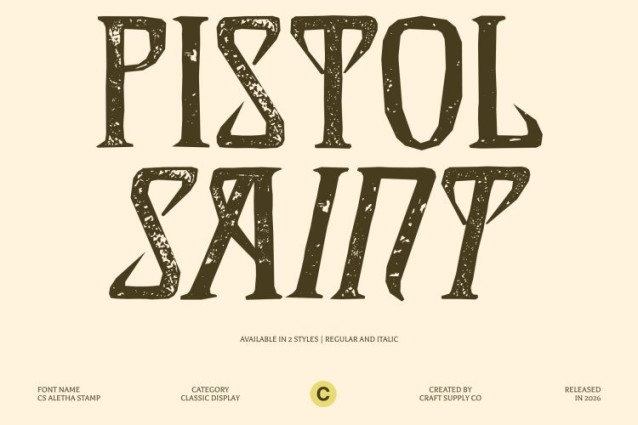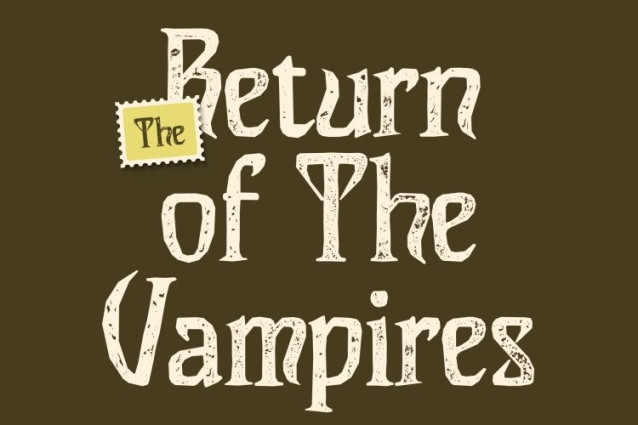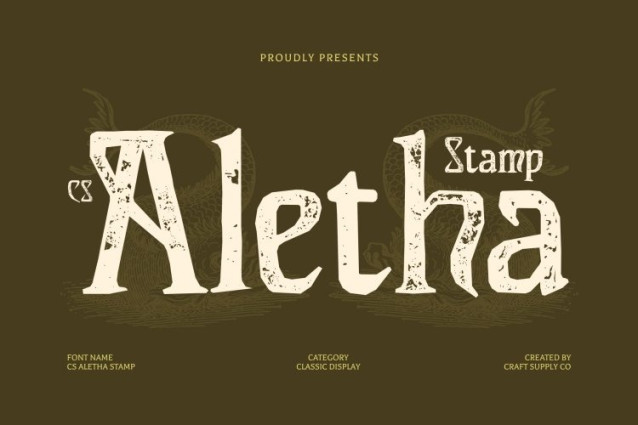
CS Aletha Stamp Font
CS Aletha Stamp Font This is a modern display serif font distinguished by its unique L and T characters, featuring inwardly curved, pointed terminals. These refined details give the font a sharp yet graceful personality, blending contemporary precision with classic serif elegance. Enhanced with a stamp effect, the letterforms gain subtle texture and an organic, slightly aged finish that adds character and visual depth.
Sophisticated Design with Artistic Character
The combination of sharp serifs and stamped texture creates a refined yet expressive aesthetic. While the structure remains clean and elegant, the textured surface introduces warmth and authenticity, making the font feel handcrafted rather than purely digital. This balance results in a timeless design that feels both polished and full of personality.
Timeless Quality with a Modern Edge
This font bridges classic serif tradition and modern display style. Its distinctive letter shapes ensure strong visual identity, while the stamp effect softens the formality, adding a hint of vintage charm. This makes the font suitable for designs that want to feel elegant, confident, and rich in character without appearing outdated.
Perfect for Elegant Branding and Editorial Use
Ideal for sophisticated branding, editorial layouts, elegant invitations, and premium packaging, elevates any composition with style and refinement. Whether used in headlines, logos, or statement typography, it delivers a lasting impression of timeless beauty, modern sophistication, and artistic depth.